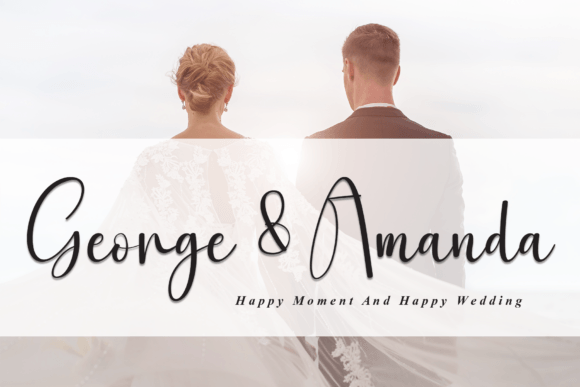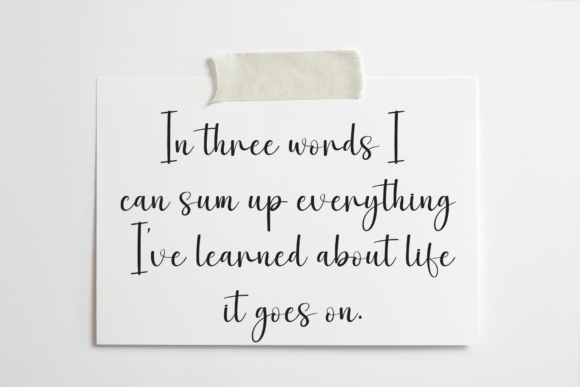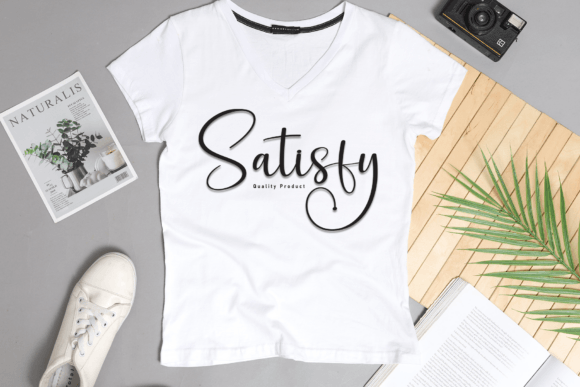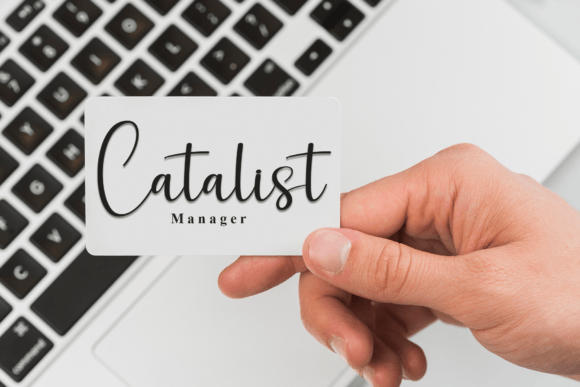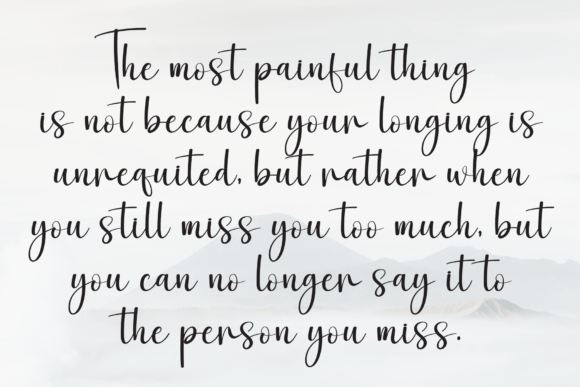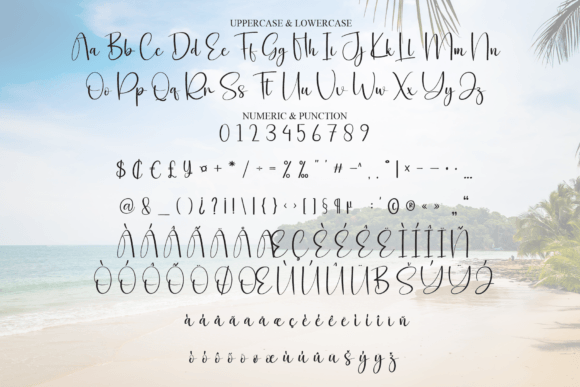
Unleashing the Charm of Handwritten Typography
Have you ever found yourself scribbling down ideas in the sand on a lazy Saturday morning, the warm sun beating down on your skin, and the sound of the waves gently crashing in the background? It’s moments like these that spark creativity, and it’s precisely this feeling that the Beach Saturday Font aims to capture.
This charming handwritten font boasts smooth, flowing lines that evoke a sense of relaxation and personality. Its casual, unique style makes it perfect for adding a touch of whimsy to any project, whether it’s a social media post, a flyer, or even a wedding invitation.
For designers, the Beach Saturday Font is a valuable addition to their toolkit. Its versatility and charm make it an ideal choice for projects that require a more personal and creative touch. With the Beach Saturday Font, you can infuse your designs with a sense of warmth and personality, setting them apart from the rest.
Beach Saturday Font Key Features
- Font Size: The font comes in 2 font sizes: Beach Saturday Regular (standard size) and Beach Saturday Outline (a smaller, outline version).
- Unique Characteristics: The Beach Saturday Font features a unique, hand-drawn style with a mix of bold and cursive elements, perfect for creating a relaxed, beach-inspired atmosphere.
Beach Saturday Font Review
Overall, I was excited to dive into the Beach Saturday Font, hoping it would bring a sense of laid-back charm to my designs. Here’s my honest take on this font.
- Casual vibe: The Beach Saturday Font perfectly captures the relaxed atmosphere of a Saturday at the beach. It’s a great choice for projects that require a carefree feel.
- Readability: The font is clear and easy to read, even at smaller font sizes.
- Variety: The font family comes with multiple weights and styles, giving designers plenty of options to work with.
- Limited elegance: While the font is perfect for casual designs, it may not be the best choice for more formal or elegant projects.
- Lack of sophistication: Some users might find the font too playful or childish for certain applications.
- Not ideal for small text: At very small font sizes, the Beach Saturday Font can become blurry and difficult to read.
Overall, I think the Beach Saturday Font is a great addition to any designer’s toolkit, but it’s essential to use it wisely. When paired with the right design, it can bring a unique and refreshing touch. However, it’s not the best choice for every project, and designers should consider the context before selecting this font.
Tips for Getting the Most Out of the Beach Saturday Font
For best results, use the Beach Saturday Font in conjunction with other beach-inspired graphics and colors.
Experiment with different font sizes and styles to create visual interest.
Use the Beach Saturday Font to add a touch of whimsy and fun to your designs.
The Beach Saturday Font is ideal for:
Beach-themed designs and graphics.
Summer-inspired marketing materials.
Fun and playful social media posts.
Alternatives to Beach Saturday Font
Pacifico is a beautiful, elegant script font perfect for creating a relaxed and beachy vibe. It’s ideal for wedding invitations, greeting cards, or any other design that requires a touch of sophistication. Compared to Beach Saturday Font, Pacifico is more refined and less playful, making it suitable for more formal beach-themed designs.